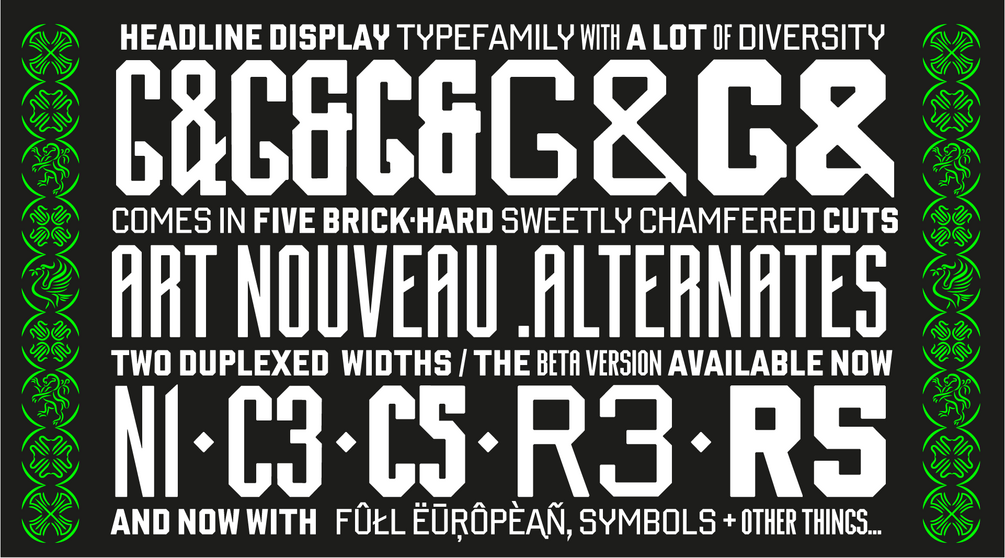
Cham
Cham is a display font based on the fascia lettering on Coleman's Fireproof Depository (c.1875) on Northumberland Street in Liverpool. The family contains five weights & widths. Unlike a typical sans-serif type family each has a different structural logic based on its size and style originally rendered on the building. In print and digital this creates a diverse but cohesive font. Also included are a range of 'Arts & Crafts' style alternate characters which make reference to the time when Coleman's Fireproof Depository was built.